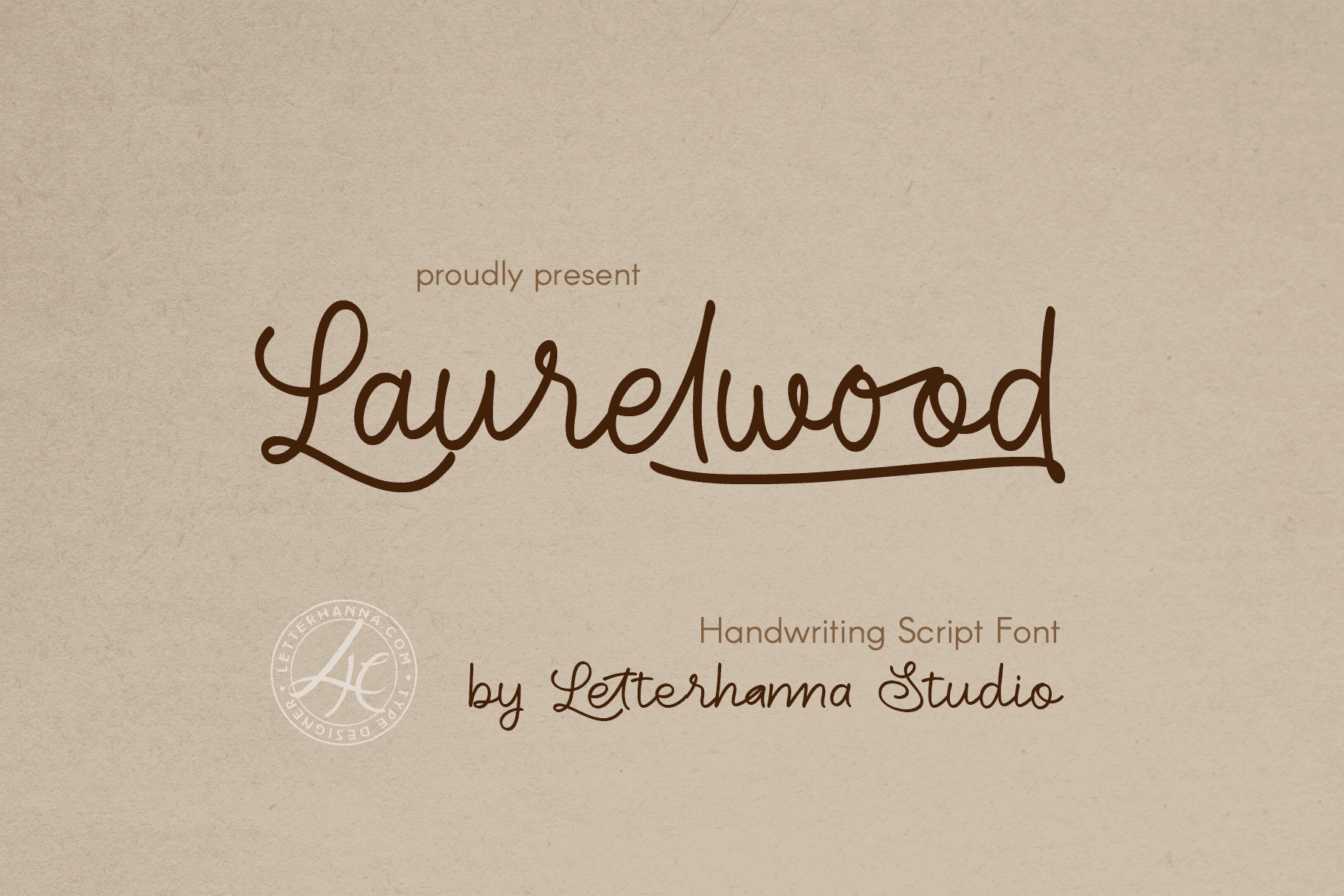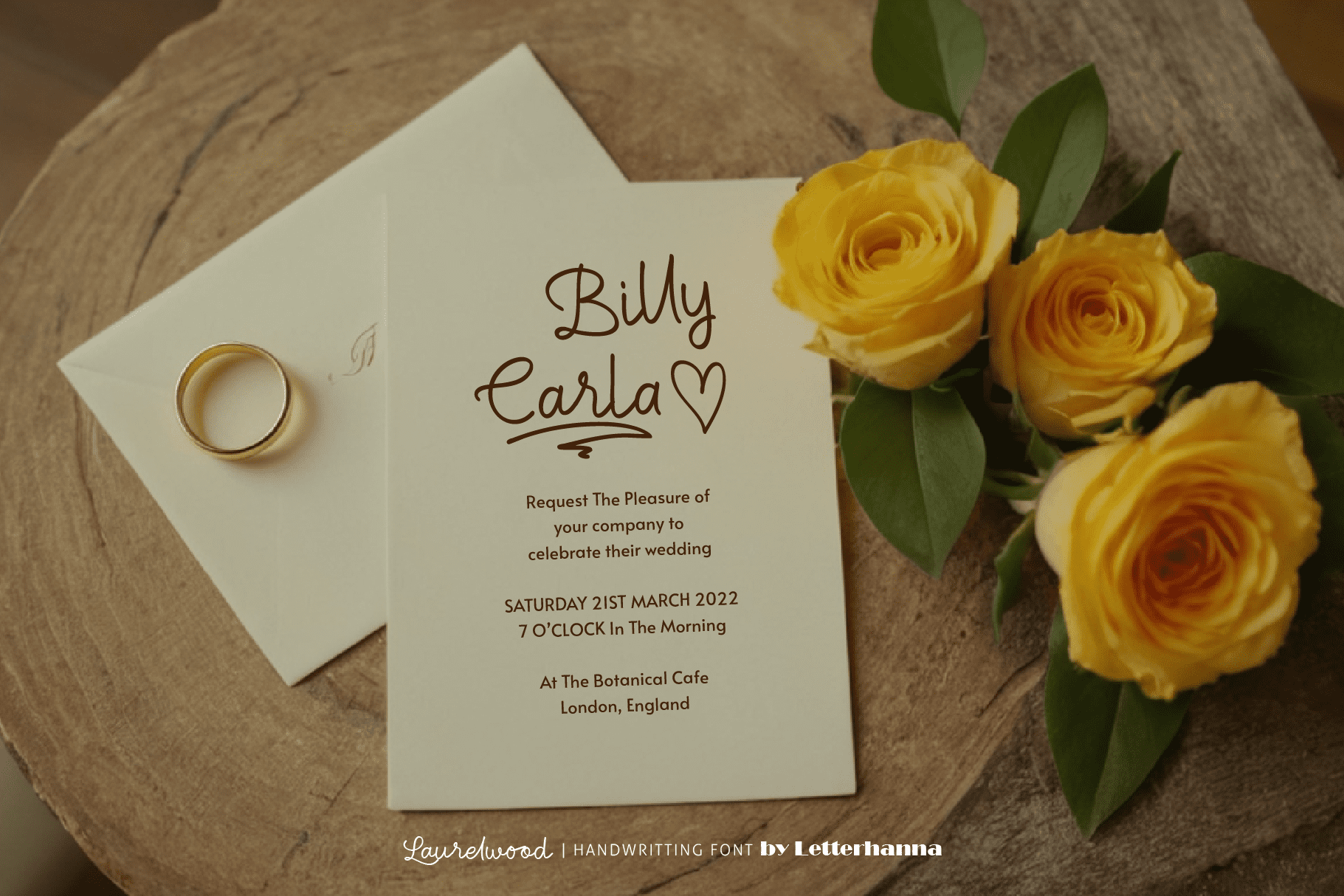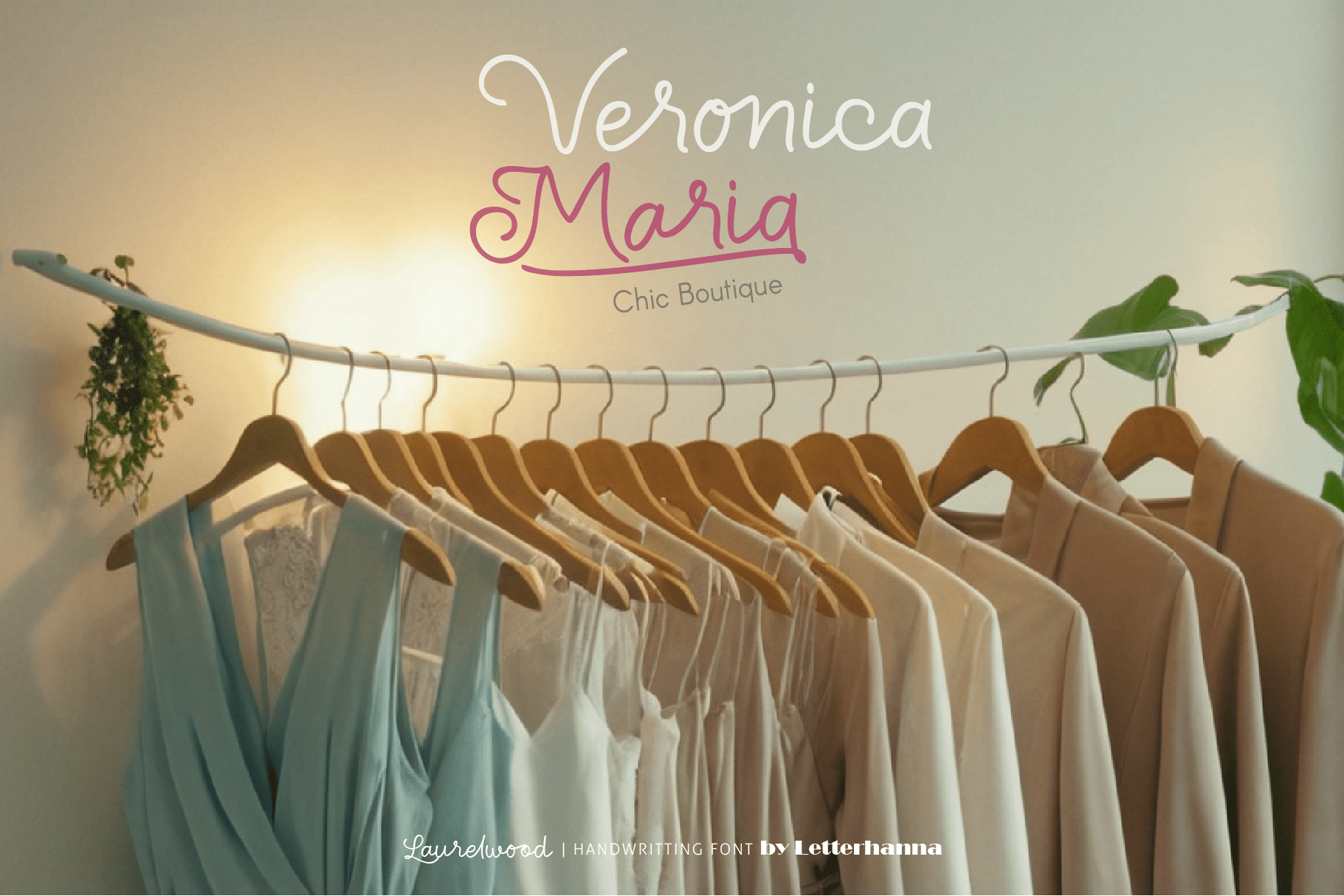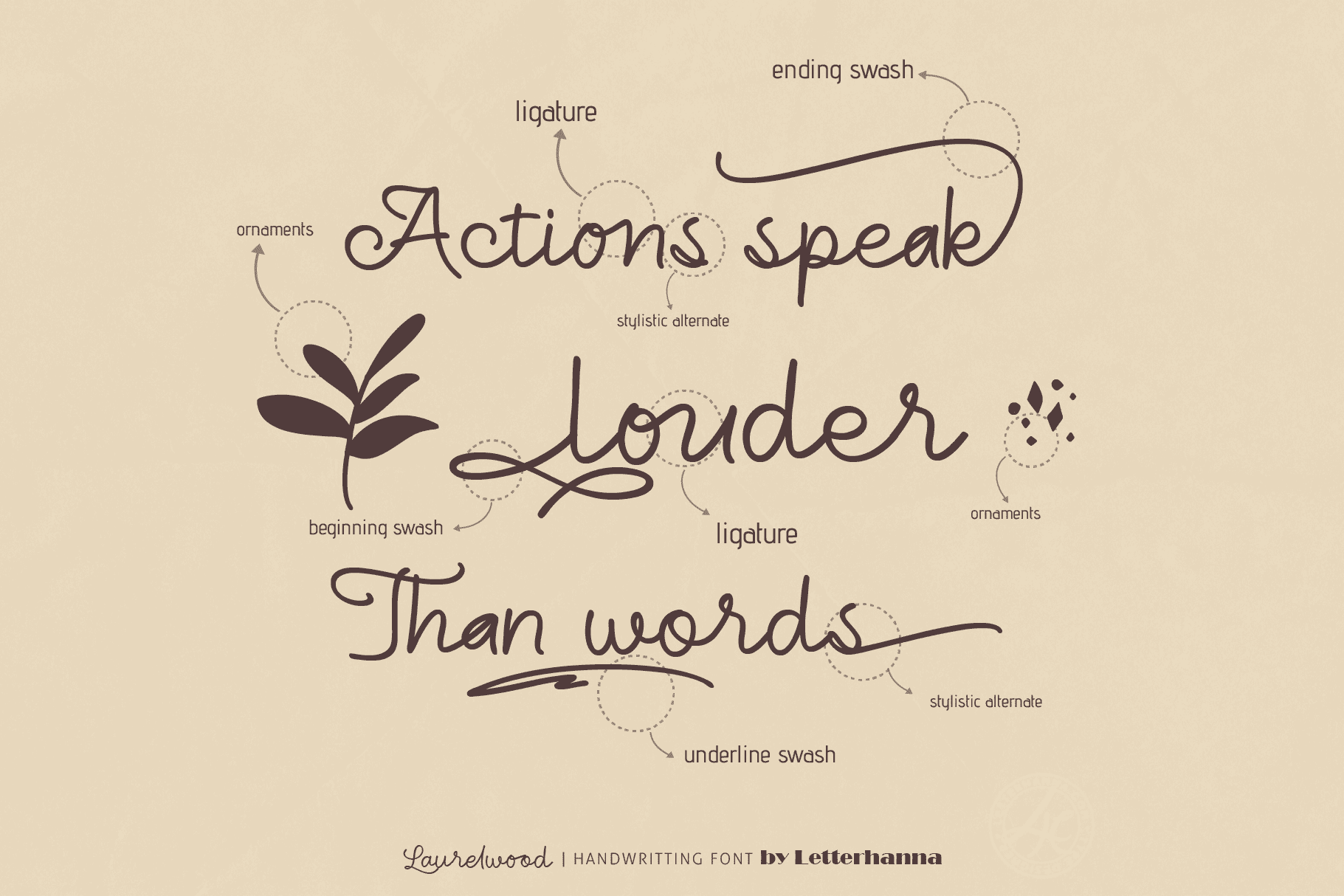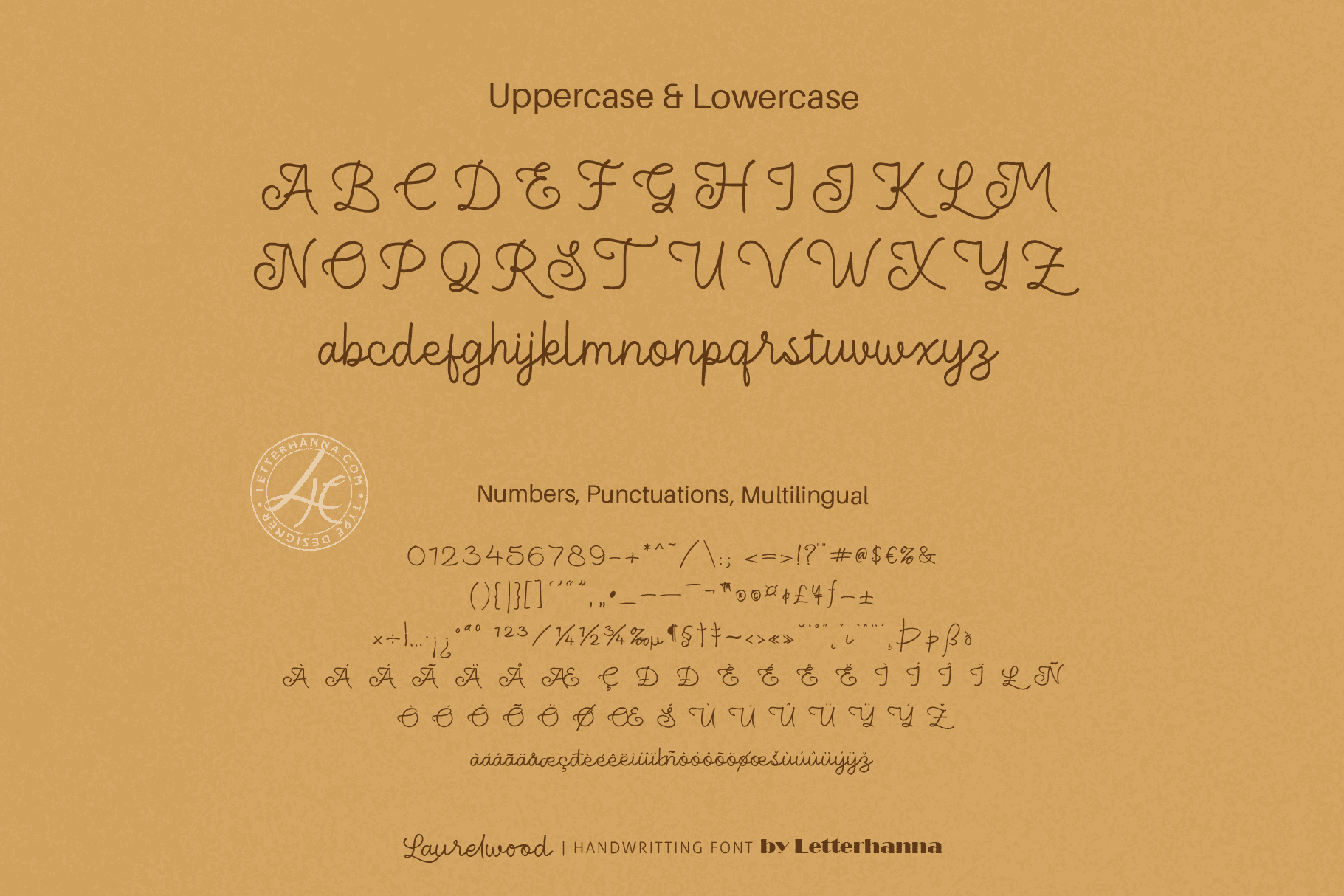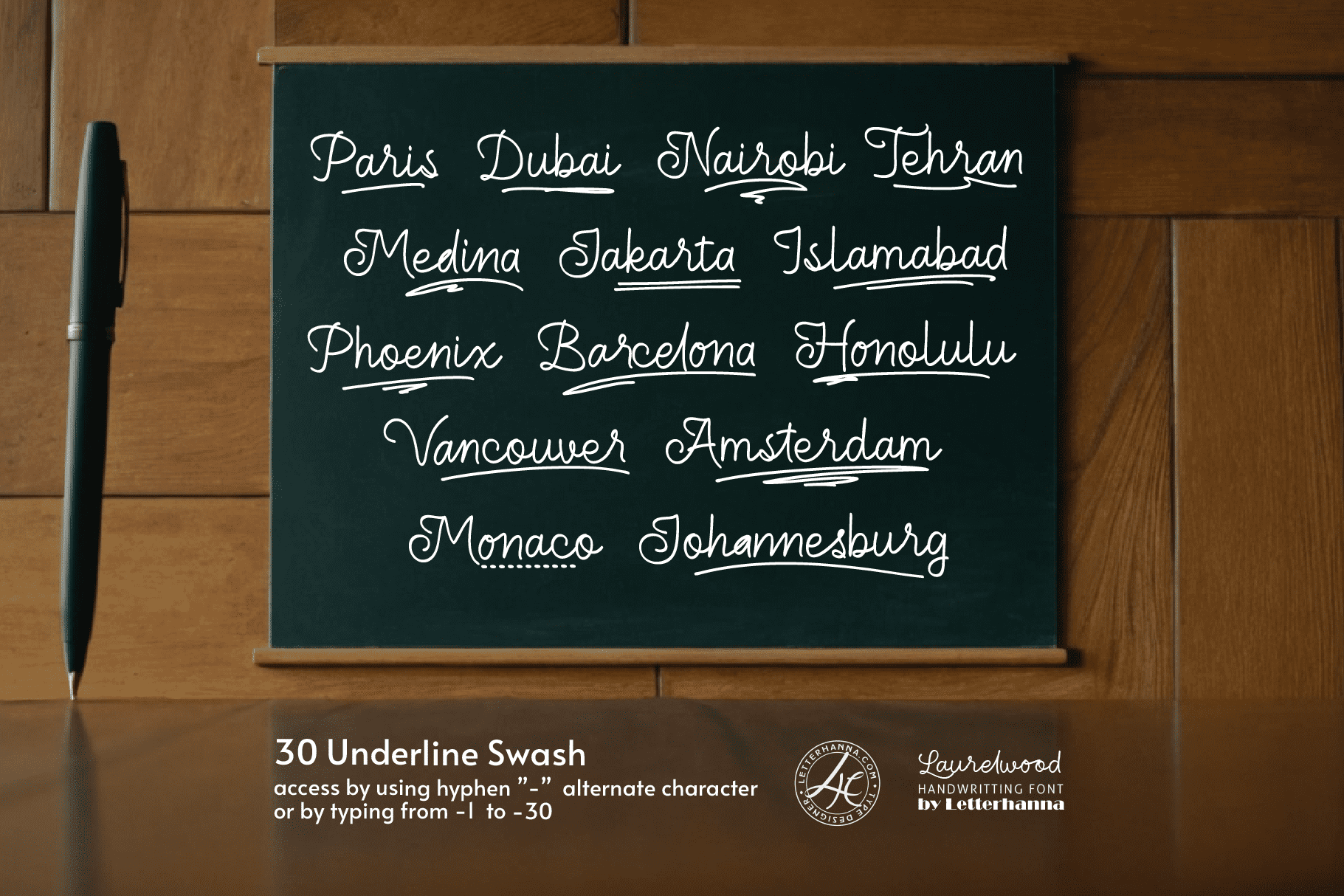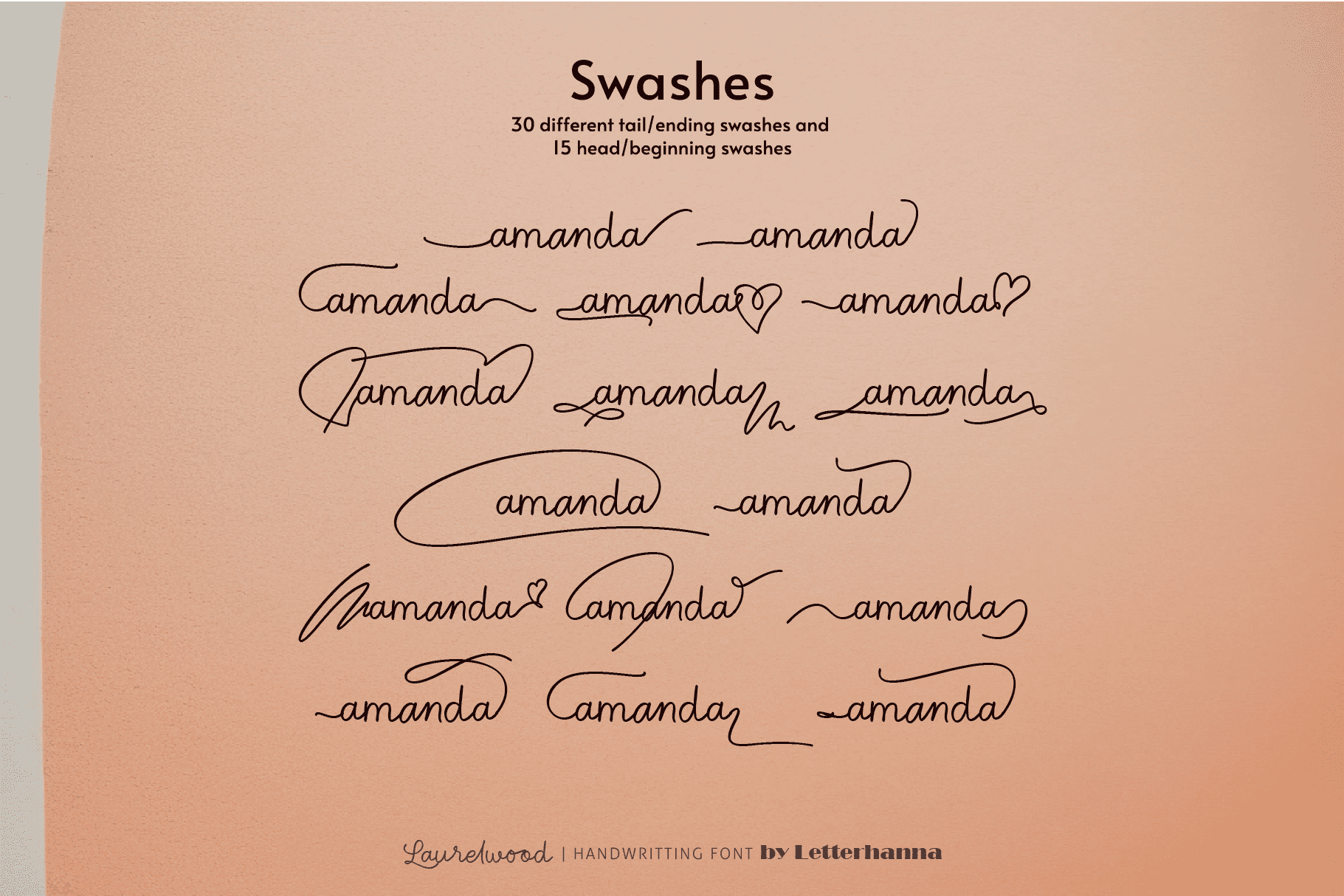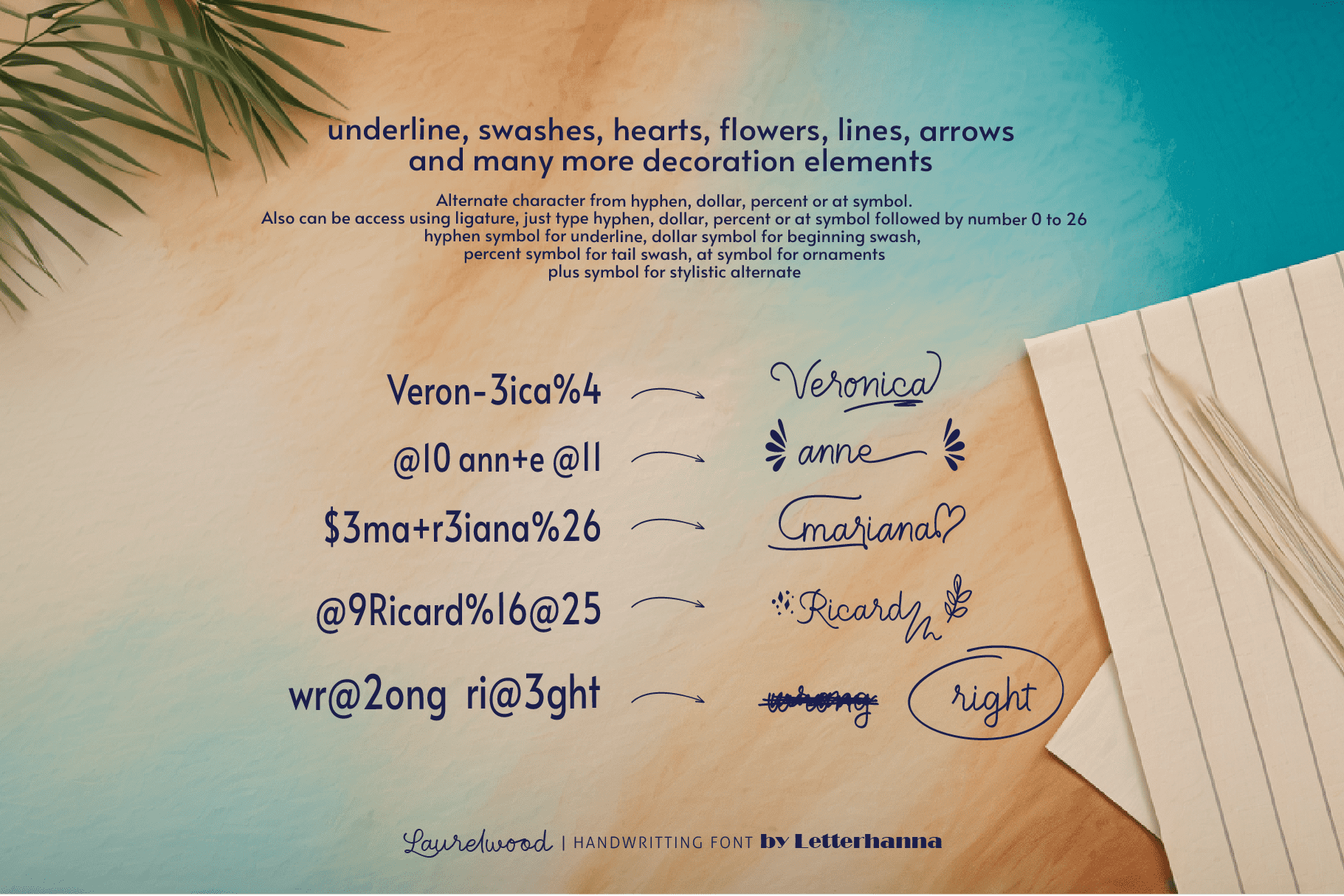
Introducing Laurelwood: A Font Rooted in Sophistication
Unveil the timeless elegance of Laurelwood, our newest typeface inspired by the enduring beauty of natural wood. Laurelwood’s design embodies a classic and sophisticated aesthetic, with clean lines and subtle variations that echo the organic textures of its namesake.
This versatile font is perfect for crafting a touch of distinction in your design projects. Whether you’re creating logos, branding materials, or elegant invitations, Laurelwood adds a touch of natural refinement that will leave a lasting impression.
Gain easy access to all alternate glyphs, swashes, ornaments, and underlines by simply using ligatures. You can try them out yourself in the font preview tool on our website, letterhanna.com.
Accessing Stylistic Alternates
Stylistic alternates can be accessed by typing a plus symbol “+” in front of the original letter. For example, type “+a” to get the stylistic alternate of the letter a.
- Underline Swashes: Use a hyphen symbol “-” followed by a number between 1 and 30. For example, type “-3”, “-22”, or “-17” to get various underline swashes.
- Head/Beginning Swashes: Use a dollar sign “$” followed by a number between 1 and 9. For example, type “$2” or “$8” to get different head/beginning swashes.
- Tail/Ending Swashes: Use a percent sign “%” followed by a number between 1 and 30. For example, type “%3” or “%15” to get various tail/ending swashes.
- Ornaments: Use an “at” symbol “@” followed by a number between 1 and 26. For example, type “@4” or “@13” to get different ornaments.
- Stylistic alternates